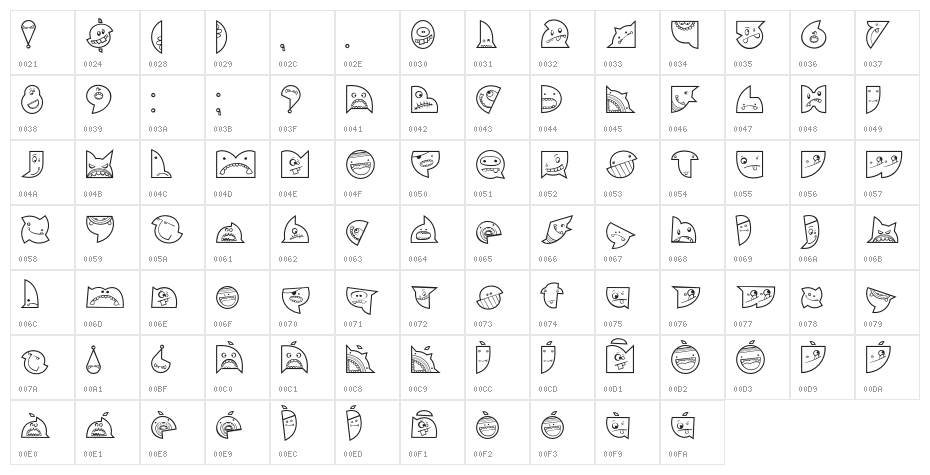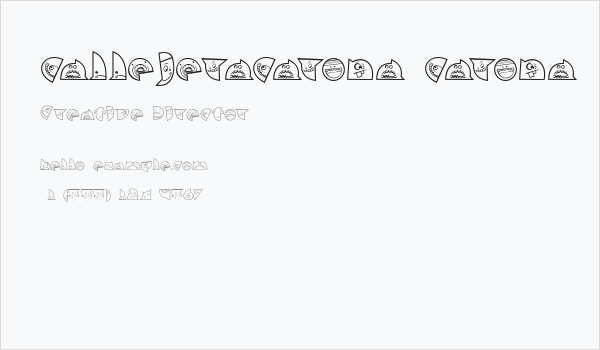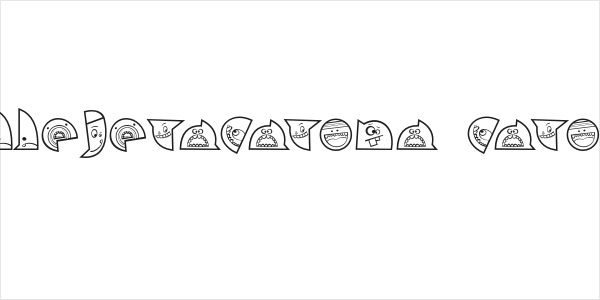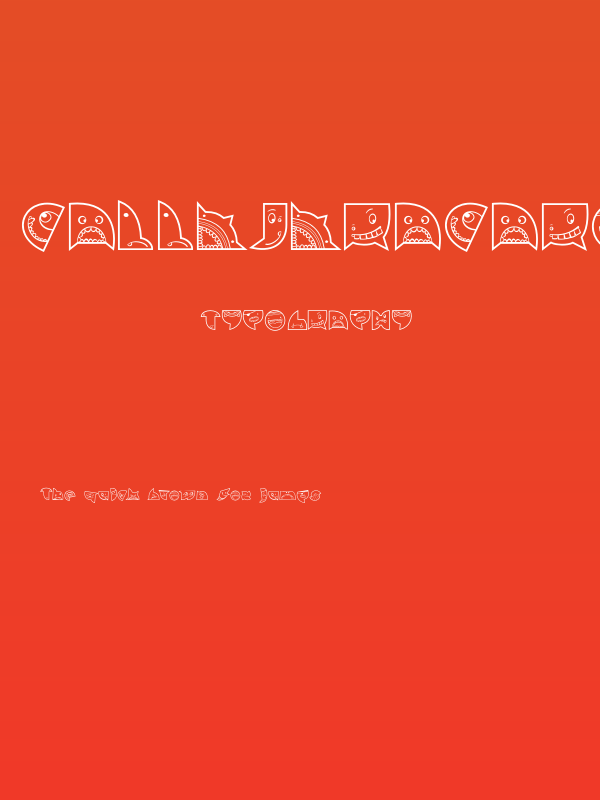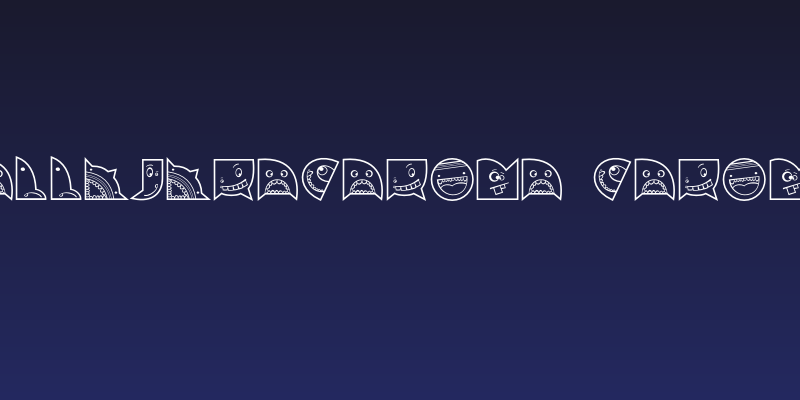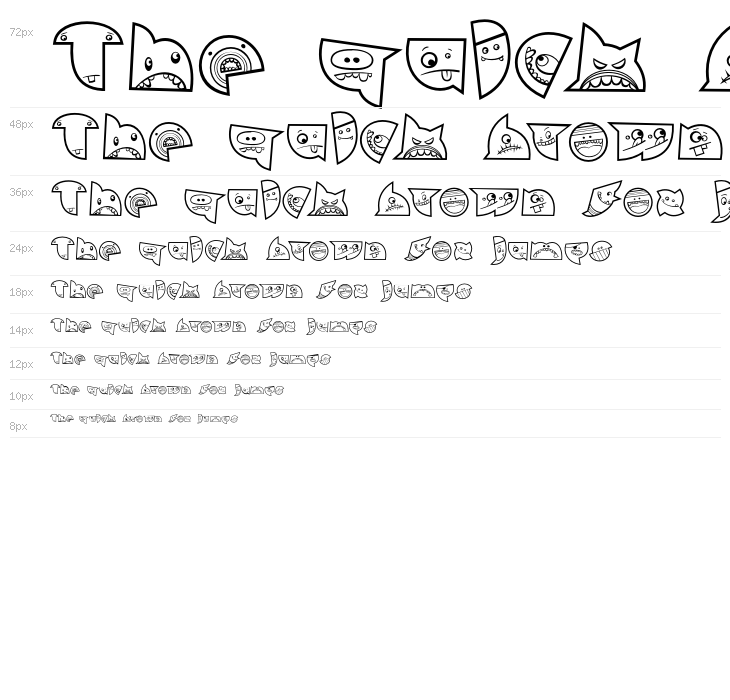
callejeracarona-carona Font
callejeracarona-carona Description
This playful and whimsical font features characters with unique, cartoonish faces embedded within each letter and number. The design is highly decorative, with each character showcasing a different expression or quirky element, making it ideal for projects that require a fun and engaging visual style. The font is characterized by its bold outlines and creative use of space within each character, offering a distinct and lively appearance. The special characters also maintain this playful theme, adding to the overall cohesive look of the font.